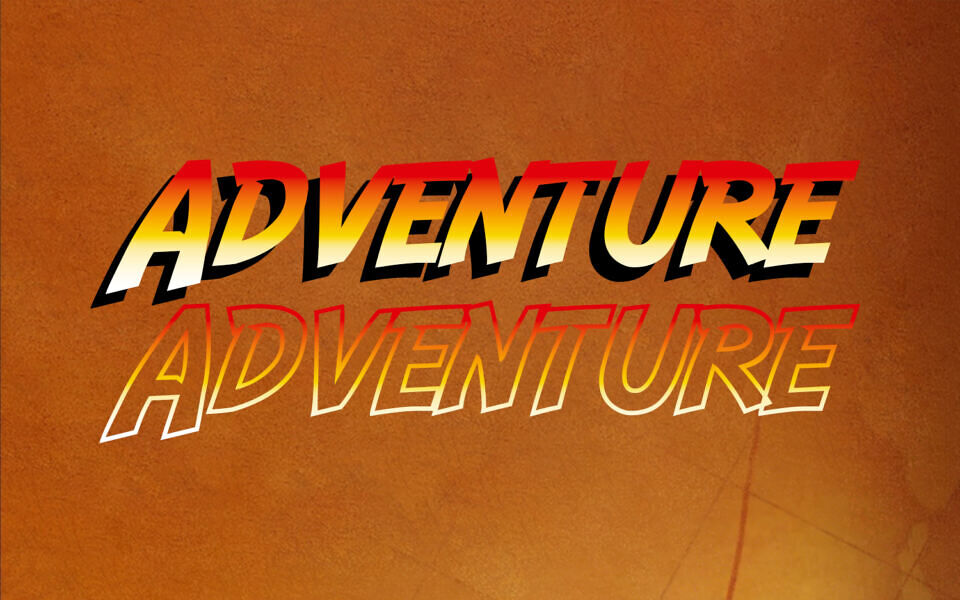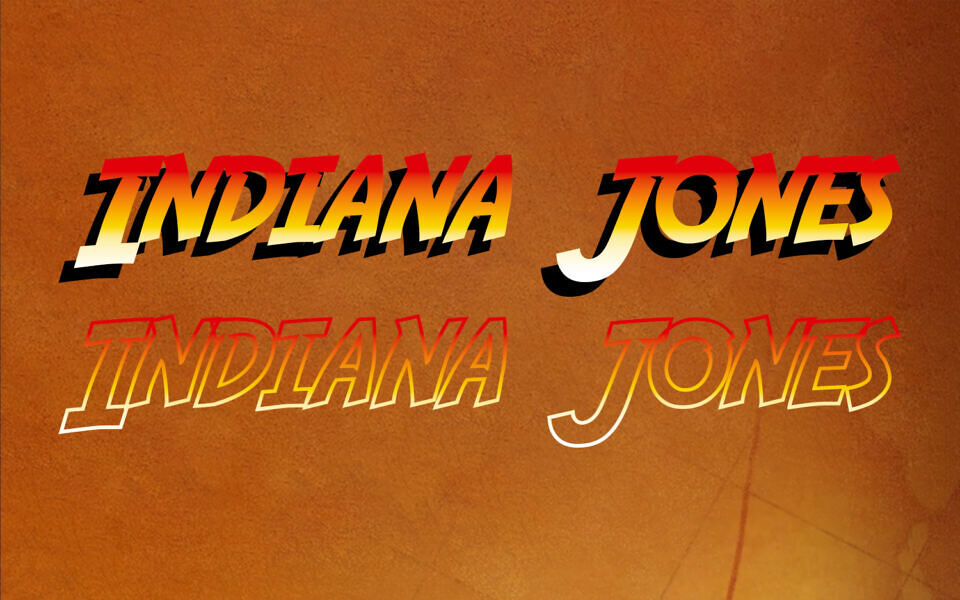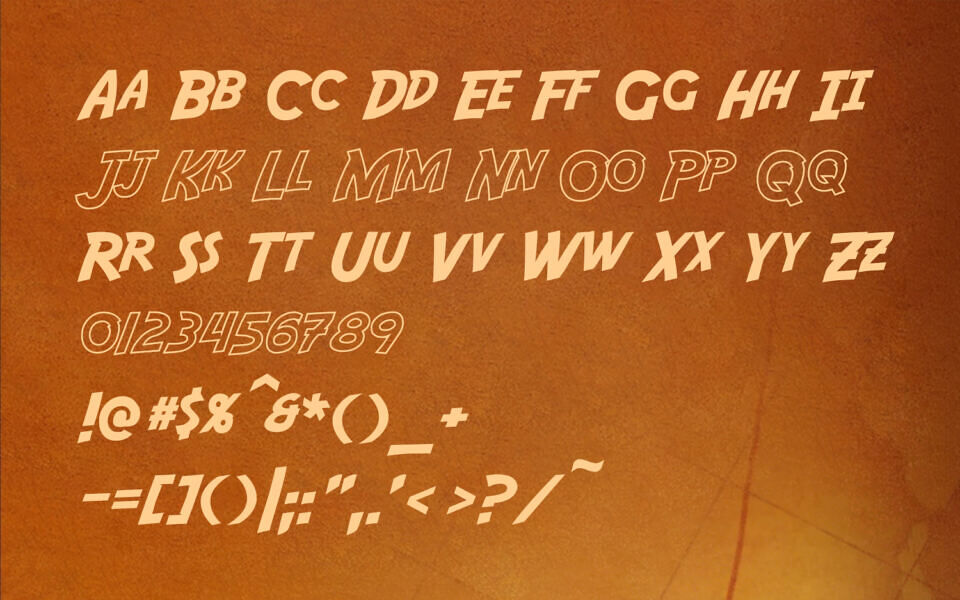
Adventure Font
Adventure is a decorative, pulpy-style font with a bold and playful design, based on the main logo of the Indiana Jones (Raiders of the Lost Ark) franchise.
Its thick strokes and slightly irregular letterforms evoke a sense of fun and excitement, making it ideal for projects that need a touch of whimsy. The font also comes in a hollowed-out version, providing an outline alternative for more versatile use. Its distinctive look is perfect for posters, logos, and headlines that aim to capture a fun and adventurous spirit.